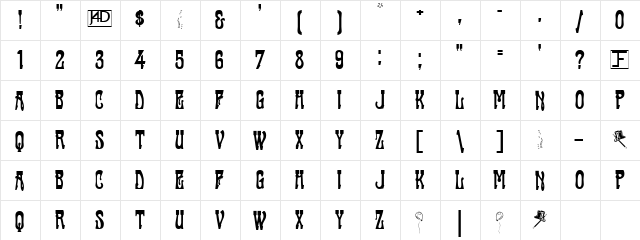
Casting Normal Font Preview
Casting Normal
Casting Normal Font Details
Design Context for Casting Typeface
Casting is a composed and adaptable typeface that performs quietly and consistently across a wide range of design contexts.